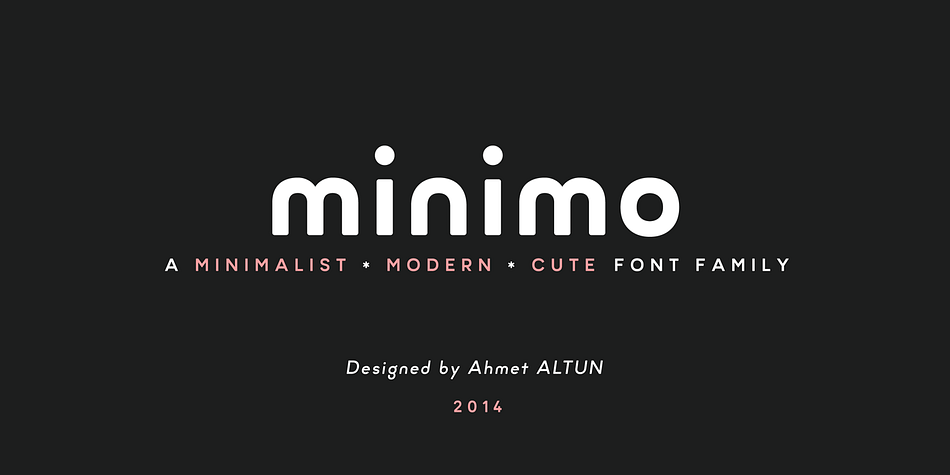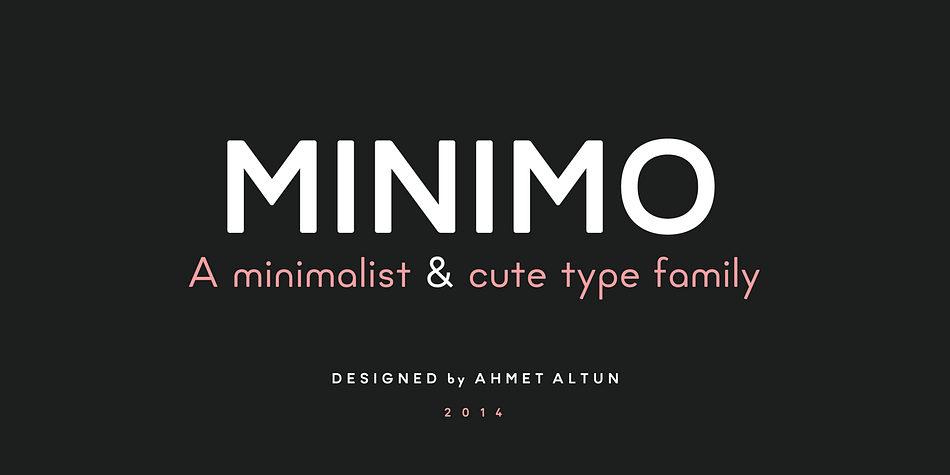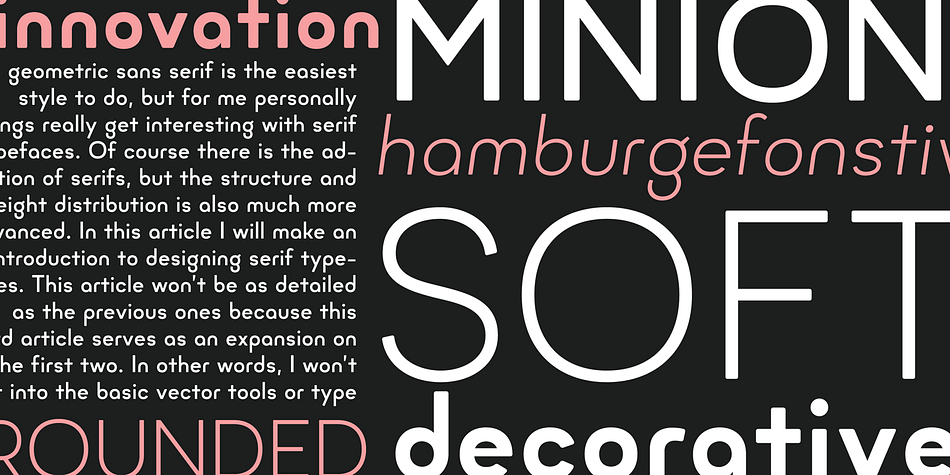
Minimo is a sans serif font family. This typeface has eight styles and was published by Ahmet Altun.
Minimo Font Family comes in 4 weights; Normals and Obliques. To have an eye-pleasing view, the corners are rounded and the lowercases are made smaller than the standard. With its soft structure, it is aimed to be legible even in the small sizes and also to be suitable for usage as webfont and application font. Moreover, with this font family, you can create eye-pleasing, cute and also nice works such as posters, printings, t-shirts, adds, magazines etc.